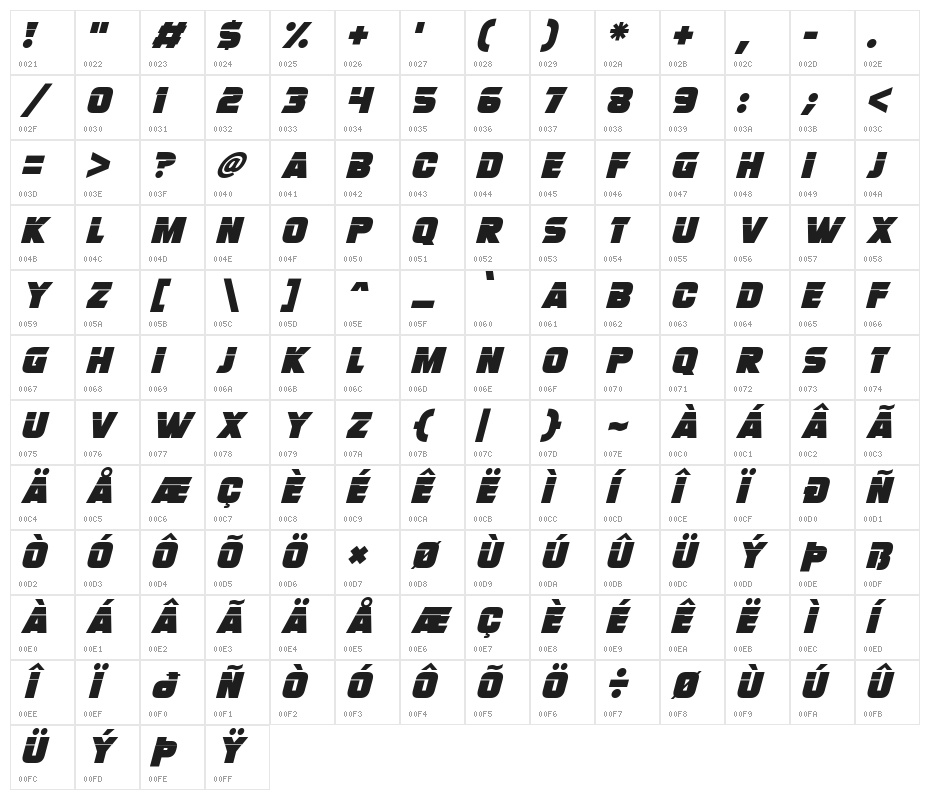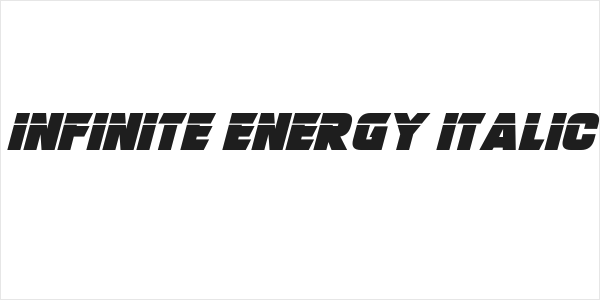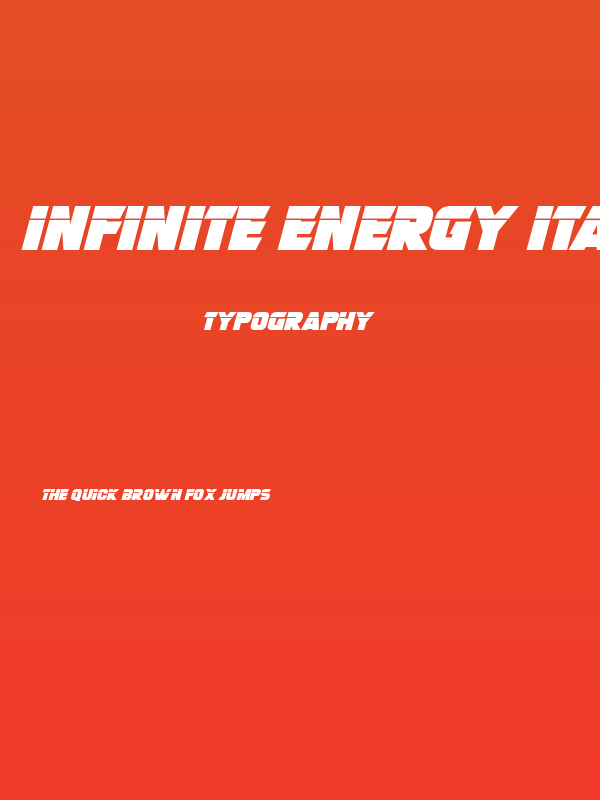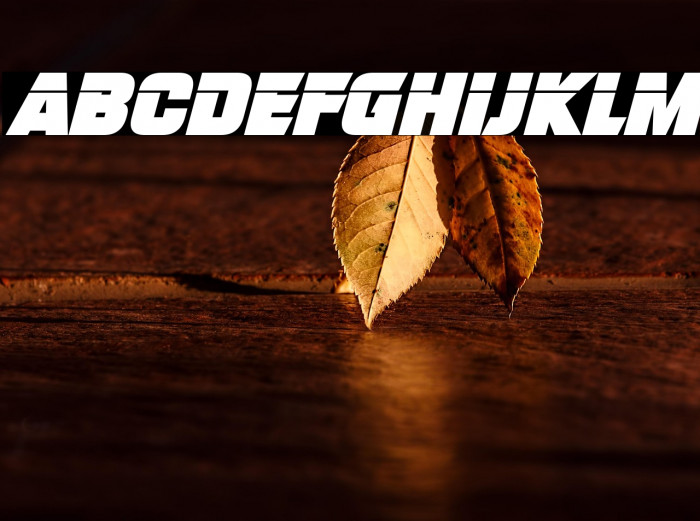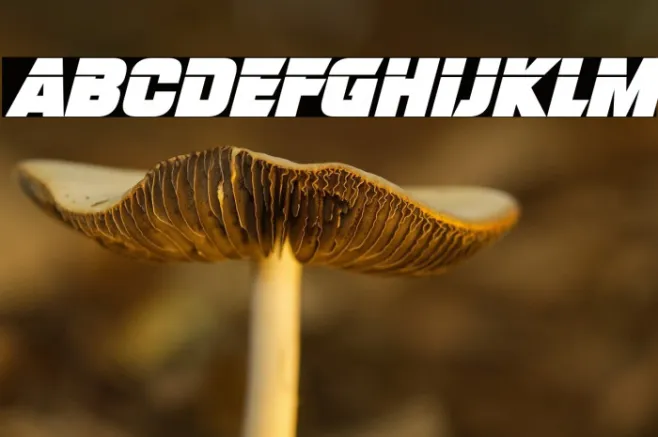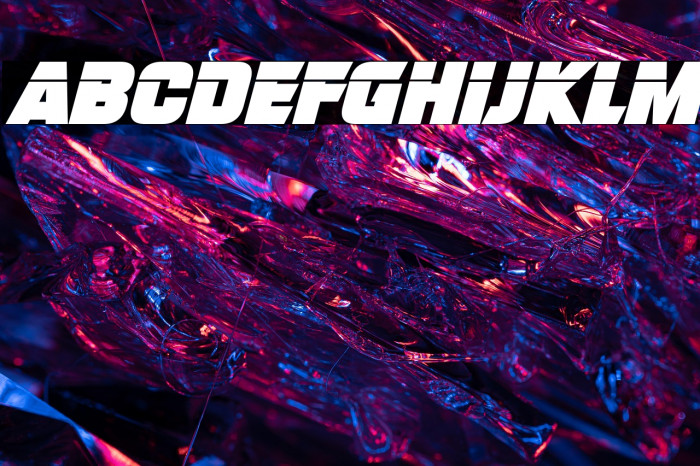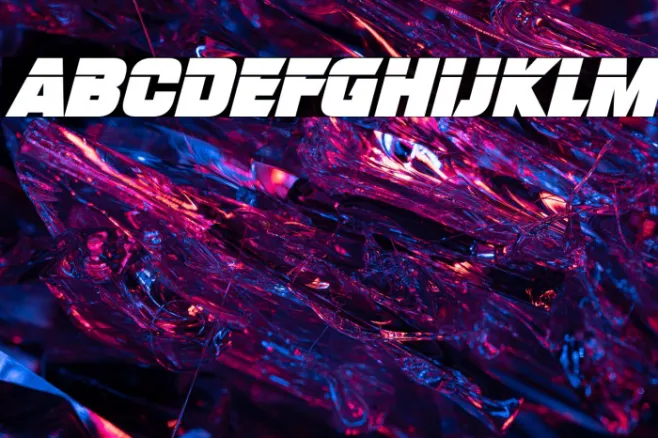
Infinite Energy Italic Font
Infinite Energy Italic Description
This dynamic and bold font features a strong italic slant, giving it a sense of motion and energy. The characters are wide and robust, with sharp angles and a futuristic aesthetic. The uppercase and lowercase letters maintain a consistent style, enhancing readability while still appearing modern and aggressive. The numbers and special characters are designed to match the boldness of the alphabet, making this font suitable for impactful designs. Its unique style is perfect for projects that require a sense of speed and power.
| Proposed Projects | Ideal for sports branding, automotive advertisements, video game titles, and any project needing a bold, energetic look. |